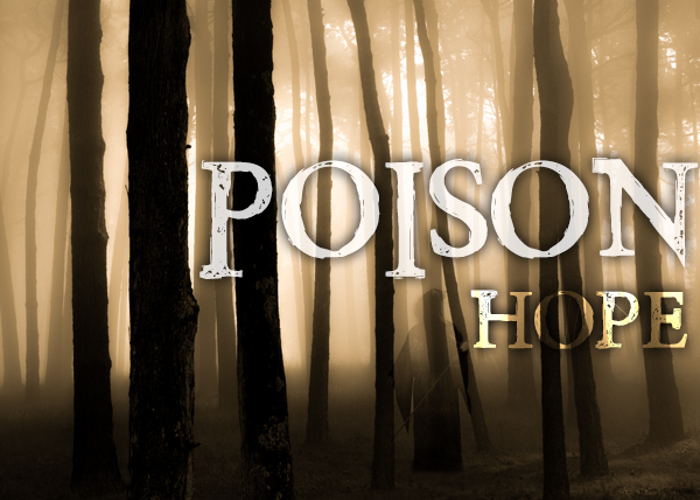
Poison Hope Font
This is possibly one of the most perfect fonts I have ever seen. It can be used for a cover regarding FEAR or a cover regarding HORROR, whether front or back. I wish all Font artists had such creativity! 😄